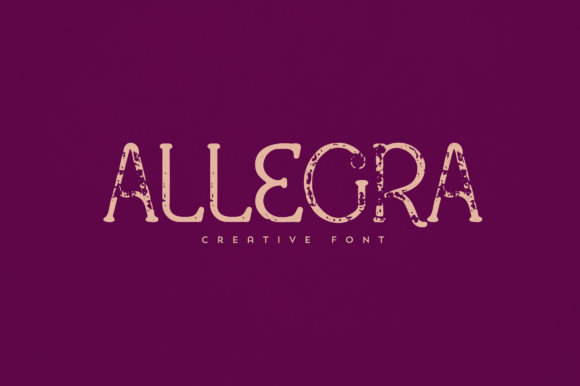
The Allegra Font: Elevate Your Typography with Elegance and Versatility
Have you ever been in the middle of a design project, and suddenly, you’re stuck on finding the perfect font? I recall a recent experience where a client requested a logo that exuded elegance and sophistication. After hours of scouring through font libraries, I stumbled upon the Allegra font, and it instantly became the solution to my typography prayers! In this article, we’ll dive into the world of Allegra, exploring its features, uses, and why it’s a must-have for designers, crafters, and creative hobbyists.
A Personal Review: What I Love About Allegra
Here’s what makes Allegra a standout font:
- ✨ Elegant and versatile: Allegra is a font that can effortlessly adapt to various design projects, from logos and branding to headlines and plain text.
- ✅ Unique typography: Its distinctive style ensures that your designs will stand out from the crowd.
- 💫 Highly legible: Despite its elegant nature, Allegra remains clear and readable, making it perfect for body text and headlines.
- 🎨 Works well with any background: Whether you’re looking to add a stylish text overlay to an image or use it as a standalone element, Allegra performs beautifully.
While Allegra is an exceptional font, there are a few minor considerations:
- 🤔 Glyph limitations: As with many fonts, some glyphs or special characters might be limited. However, for most design projects, Allegra’s character set is more than sufficient.
Allegra was designed with the intention of creating a font that embodies both elegance and versatility. Inspired by classic typography and modern design trends, the creators aimed to produce a font that could seamlessly fit into various design contexts, from luxury branding to home ware designs. The result is a font that not only looks beautiful but also offers practicality and flexibility.
Q: What makes Allegra suitable for branding projects?
A: Allegra’s elegant and versatile nature makes it perfect for branding, as it can adapt to various styles and industries, ensuring your brand stands out.
Q: Can I use Allegra for product packaging?
A: Absolutely! Allegra’s unique typography and high legibility make it an excellent choice for product packaging, helping your products stand out on shelves.
Q: Is Allegra suitable for magazine headers?
A: Yes, Allegra’s stylish and elegant design makes it perfect for magazine headers, adding a touch of sophistication to your publication.
Q: Can I use Allegra as a text overlay on images?
A: Certainly! Allegra’s design ensures it works beautifully as a text overlay on any background image, adding a stylish touch to your visuals.